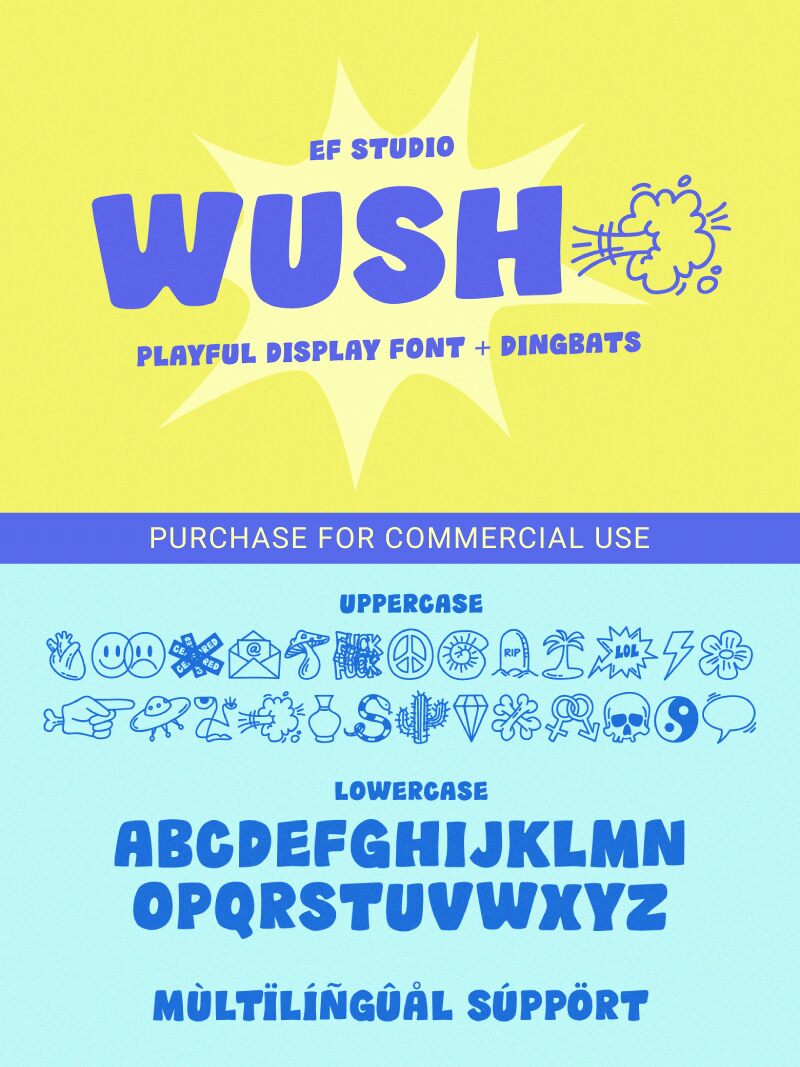
Wush font by Ef Studio is a bold cartoon display font with a youthful energy. The letters showcase gently rounded edges, and the overall design comes off as approachable and friendly. This modern typeface invites casual vibes that work great for spotlighting certain texts within a project.